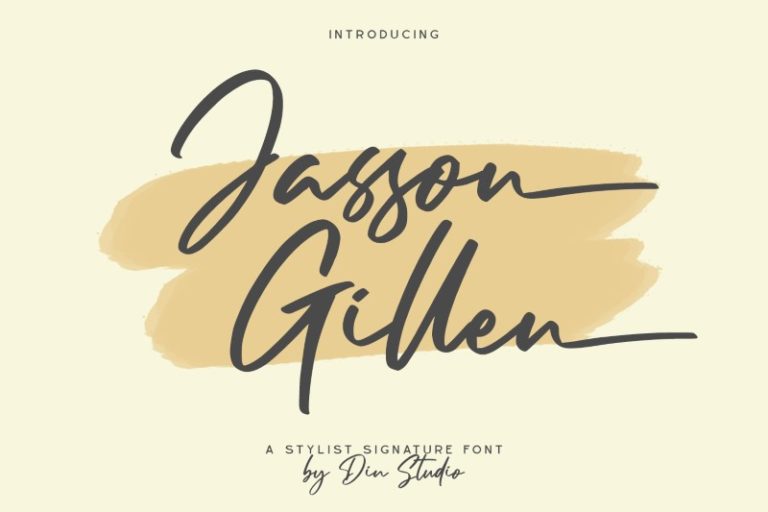
Jasson Gillen Font
Jasson Gillen is a unique penmanship style closely reflecting handwritten sophistication and was developed with sheer passion. It also applies any designs for example branding, quotes, invitation, ads, t-shirt printings, etc Each calligraphy comes with a set of handwritten uppercase and lowercase letters, numerals, punctuations, and ligatures by Jasson Gillen. Check the previews above to get an idea of how you can position them and not as standalone objects to give them context. Enjoy the font!
Jasson Gillen Handwritten Script Font